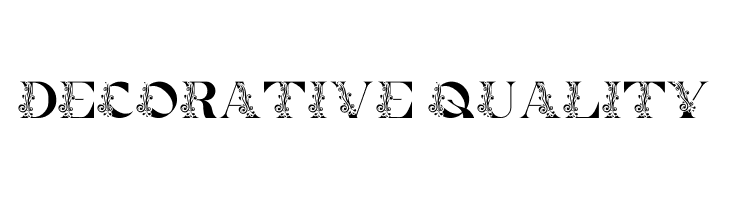
An ornate, decorative font with intricate floral embellishments.
A playful, handwritten font with a bold, slanted style.
A bold, three-dimensional font with a chrome-like, layered design.
A bold, dynamic font with a brush-like, artistic style.
A decorative cursive font with elegant loops and swashes.
A bold, playful font with handprint motifs on each letter.
A bold, 3D italic font with a playful, textured design.
A playful, bold font with decorative curls and swirls, perfect for festive designs.
A playful, bold typeface with rounded edges, ideal for children's projects.